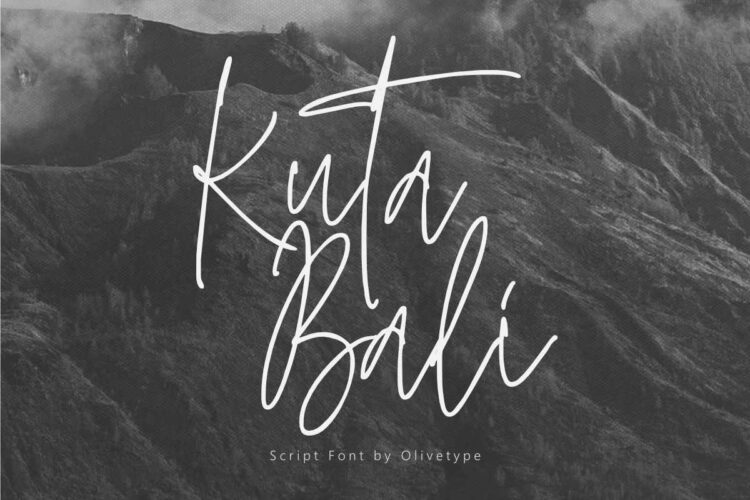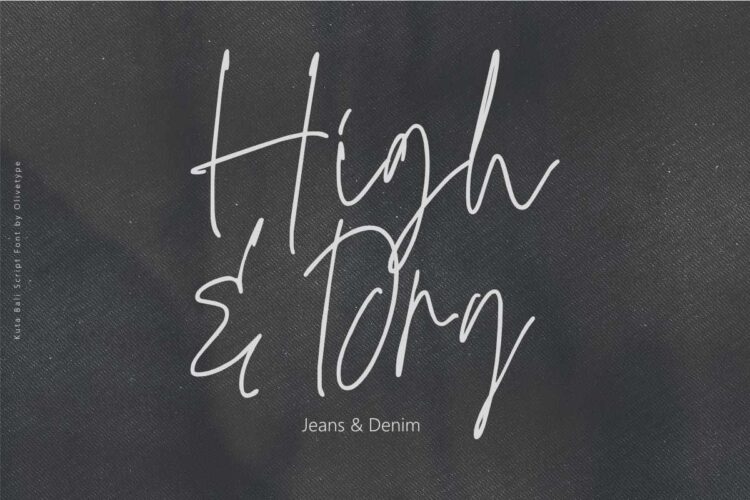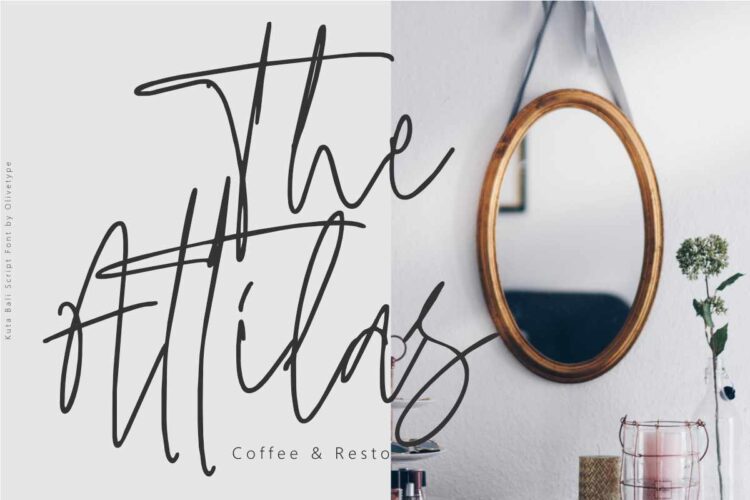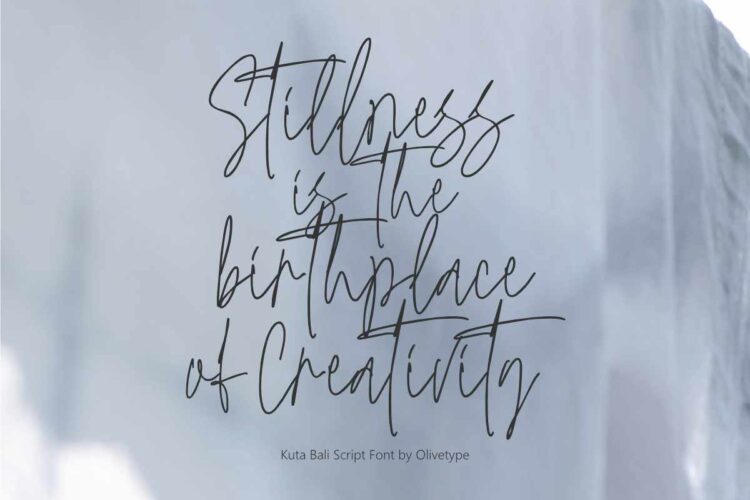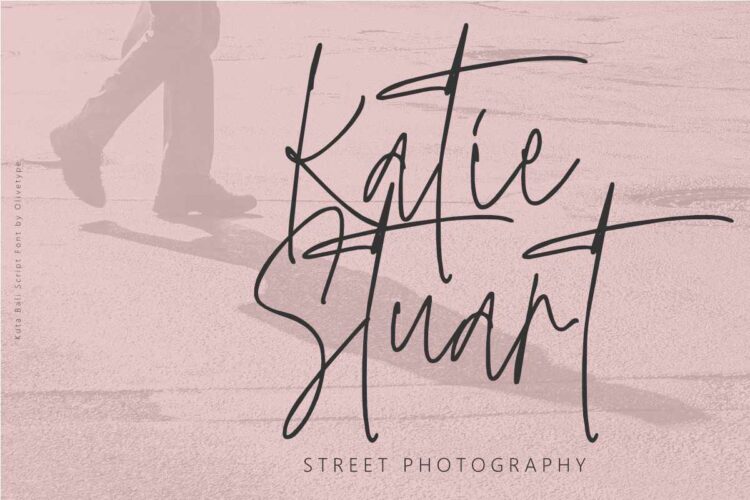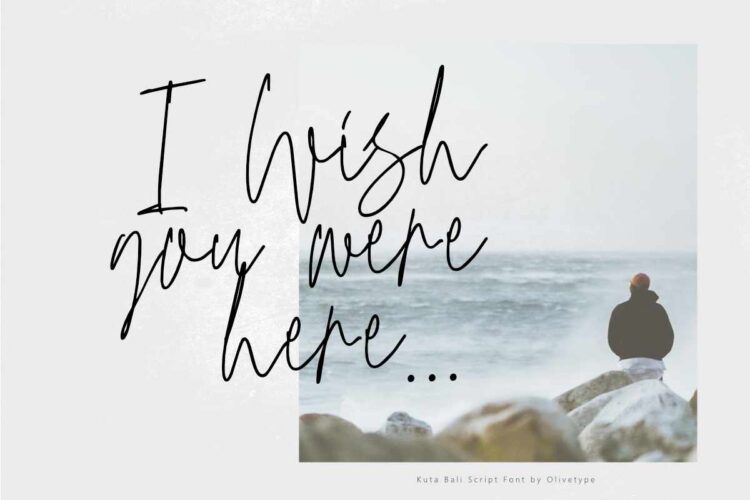
Kuta Bali is an elegant signature script font inspired by the beauty and grace of a beautiful culture. It’s suitable for branding, product packaging, or creating custom logotypes that stand out. Its unique style strikes a perfect balance between classic and contemporary, adding a touch of sophistication and elegance to any design project.